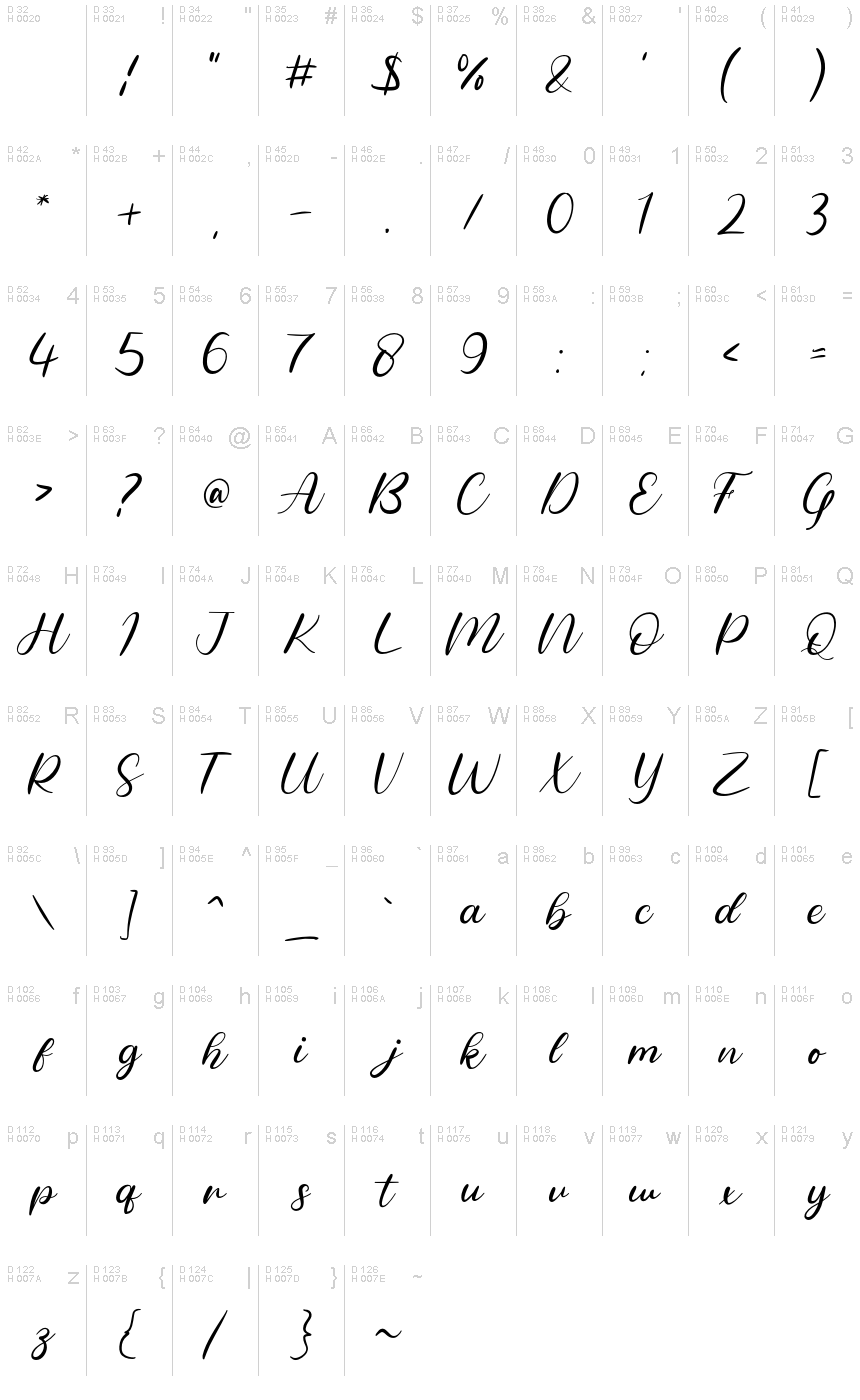
Andaray
MJType’s Andaray font is full of charm and fluidity, reminiscent of an elegant handwritten style. It is a free font with an elegant script that appears to be flowing, mimicking the natural movement of a pen on paper. The fine curves and delicate stroke modulation make Andaray appear personal and art-like, making it perfect for projects in need of genuine handwriting.
This free typeface is perfect for wedding invitations, branding or social media graphics as it gives them a soft feel. With its versatility, it can be used in different scenarios and easily achieves classiness and inventiveness. Download this mesmerizing blend of aesthetics and personality to enrich your design projects now; get hold of Andaray today.